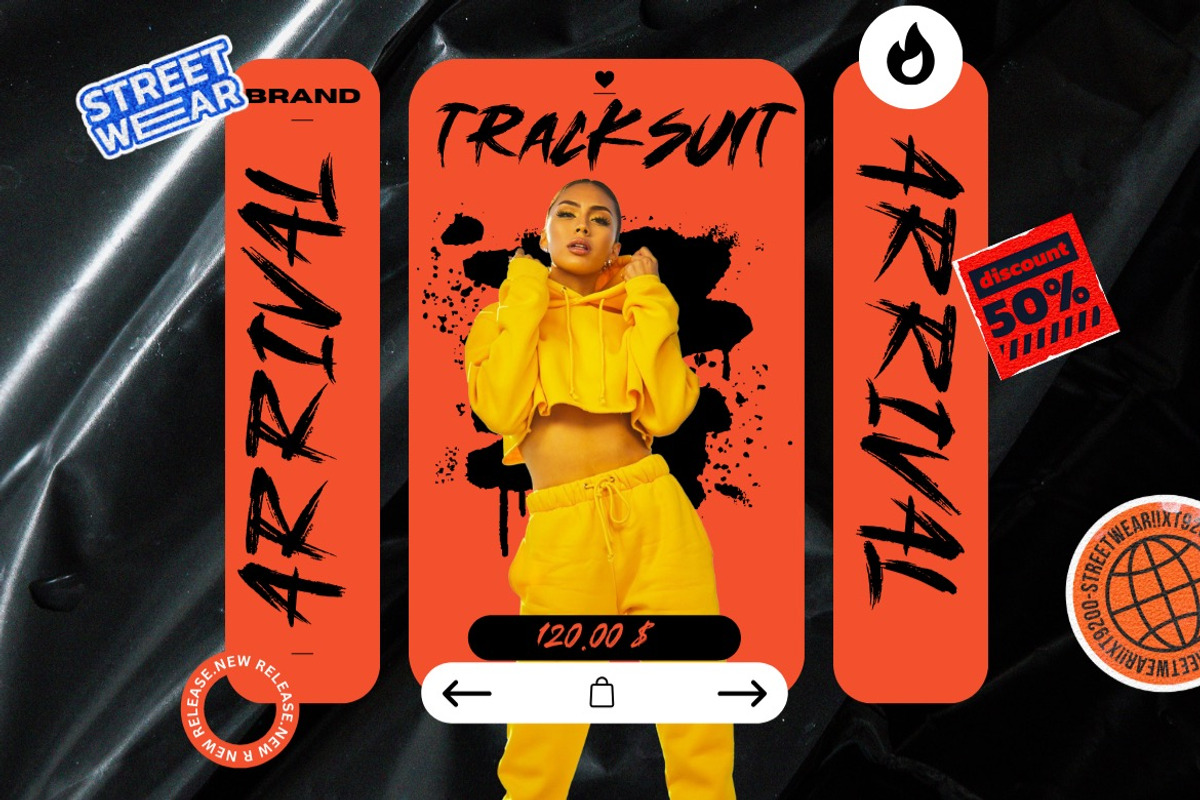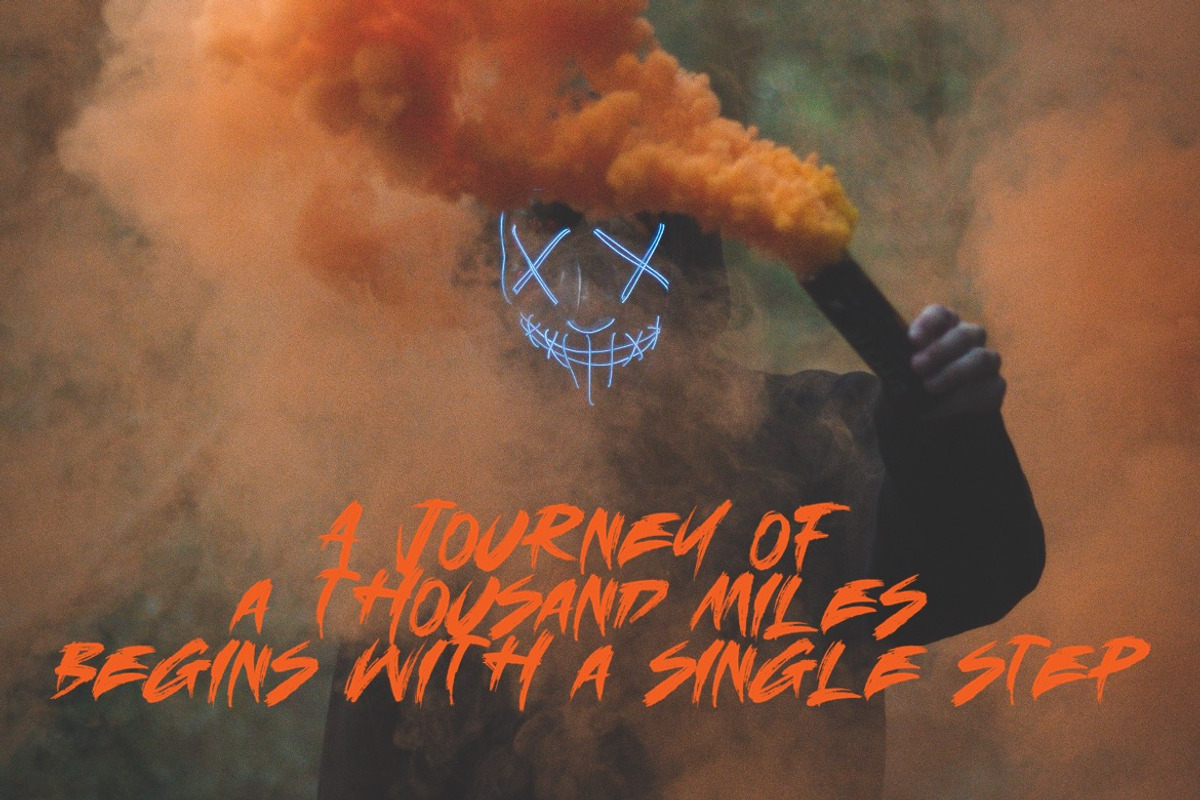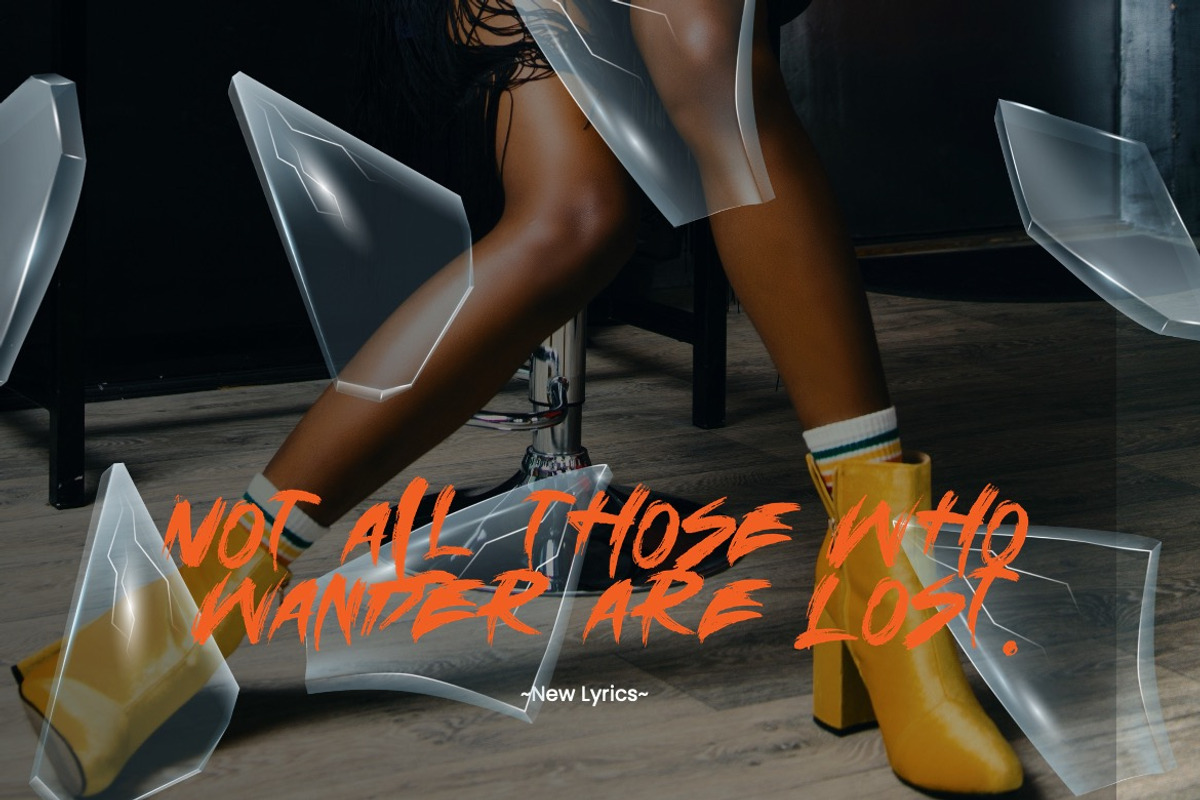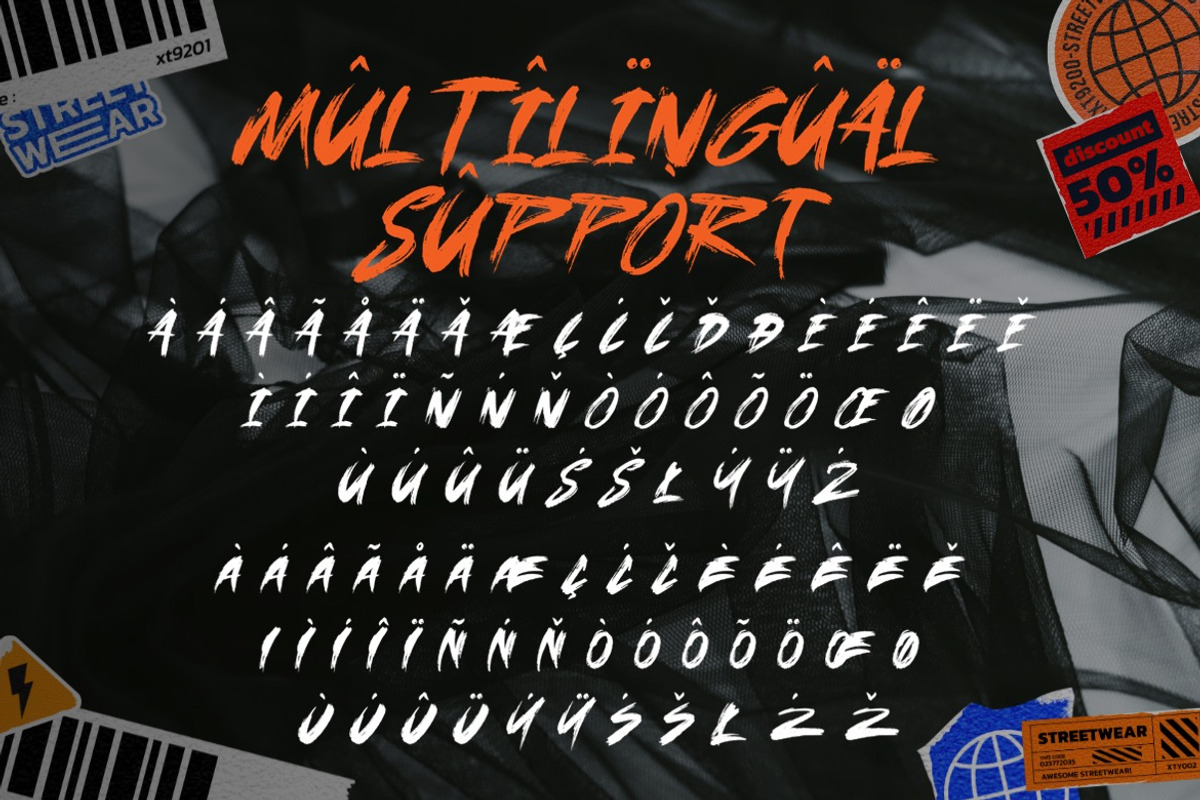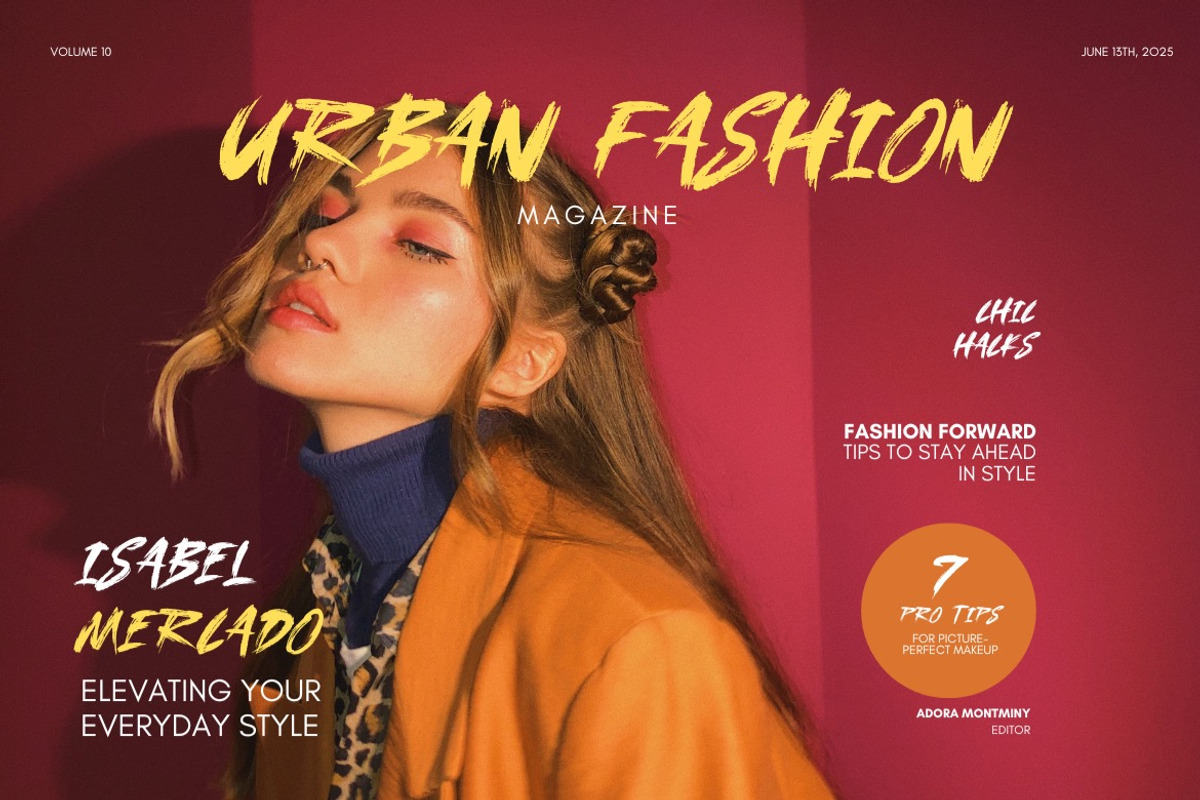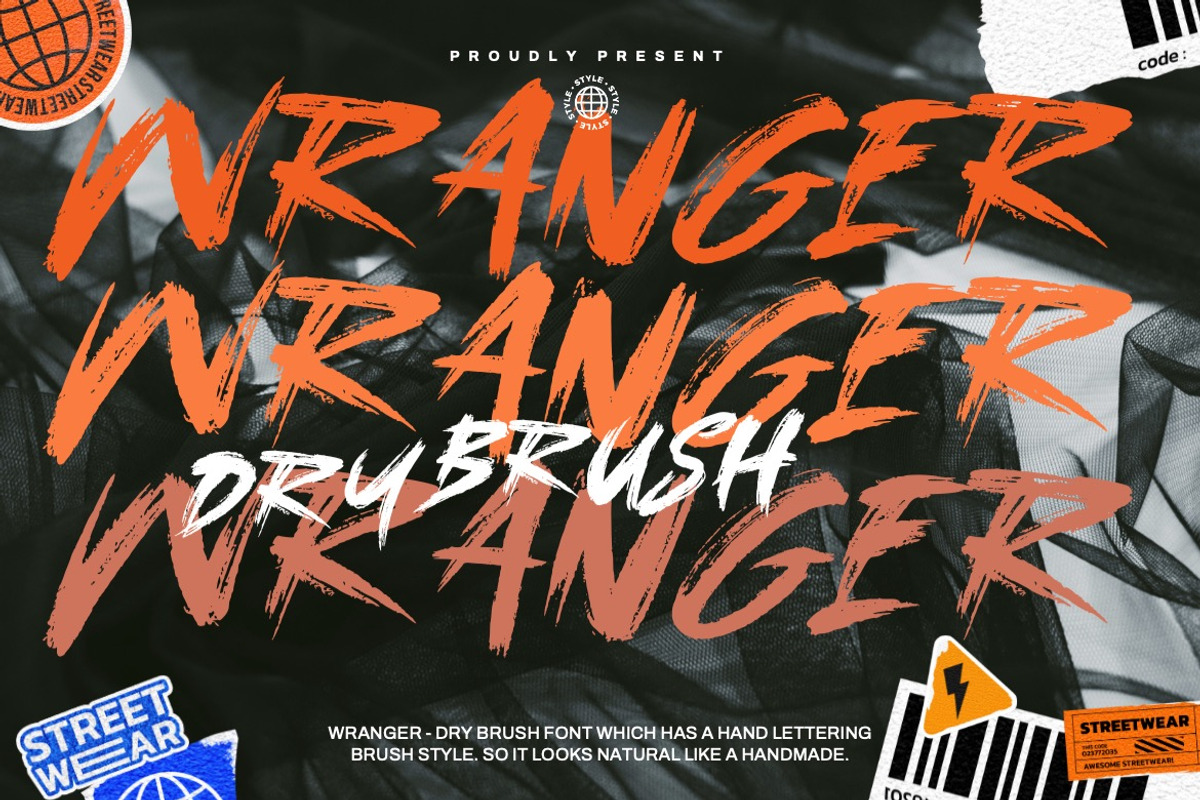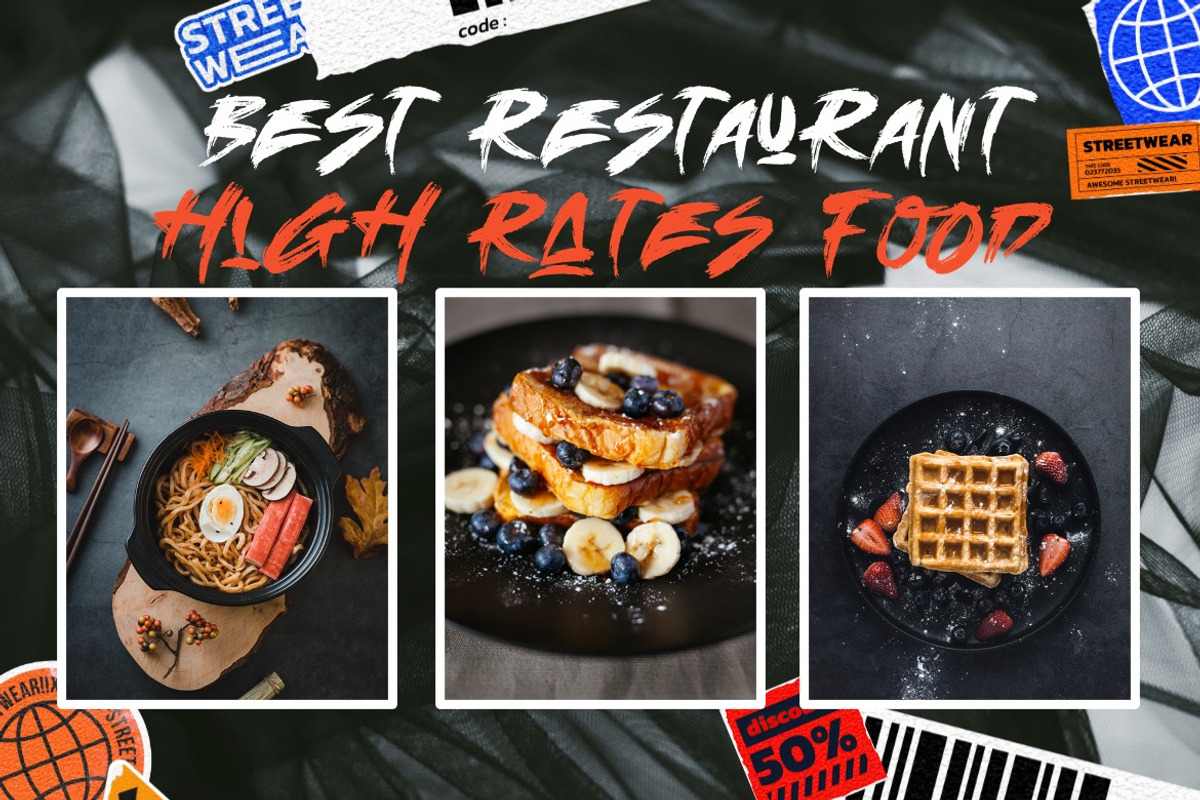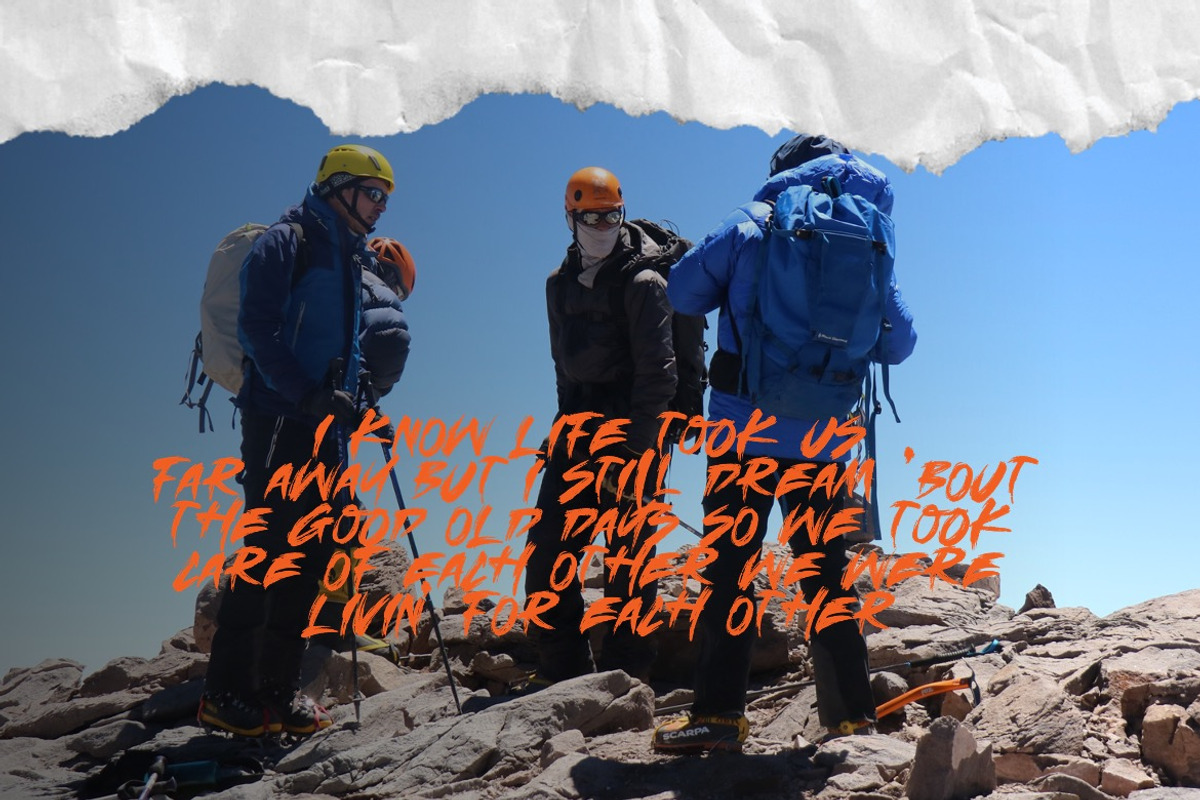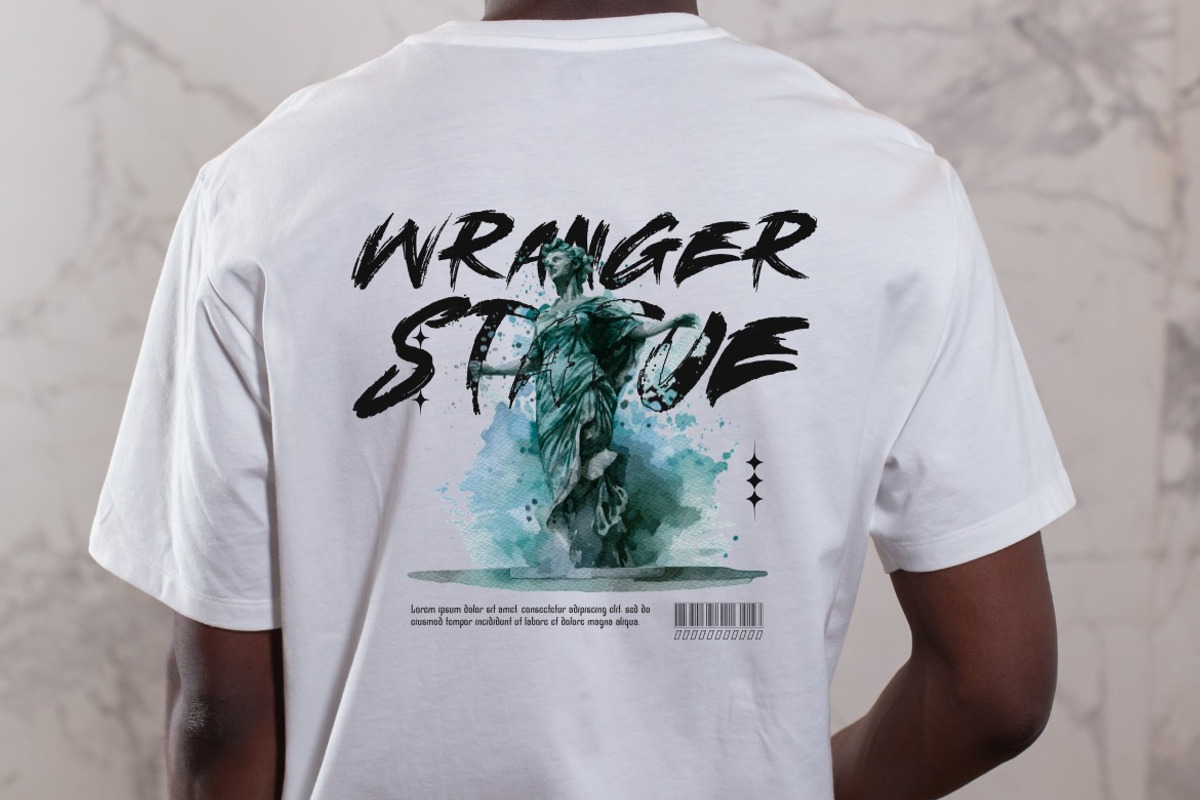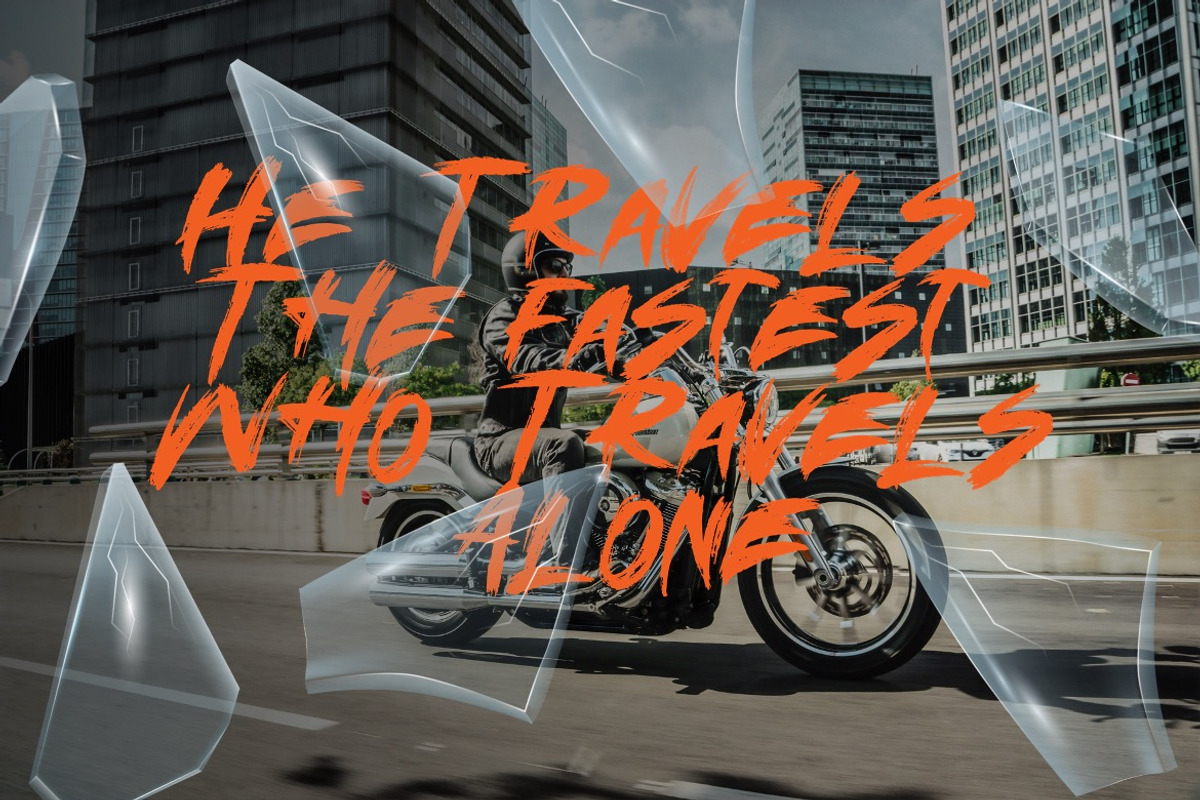
Wranger - Dry Brush Font
Introducing Wranger - Dry Brush Font
Wranger - Dry Brush Font which has a hand lettering brush style. So it looks natural like a handmade. This texture is very detailed. This font is suitable for logos, product branding, printable templates or for text overlay to any background image, also suitable for use in title design. Such as apparel, invitations, books tittle, stationery design, quotes, branding, greeting card, t-shirt, packaging design, poster and more.